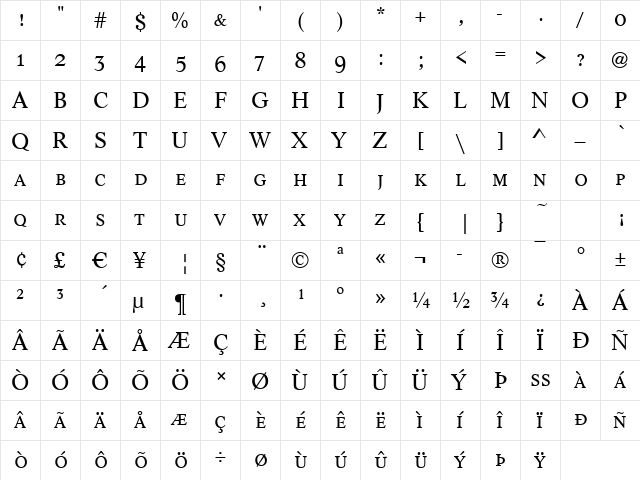
Lyon-Caps Regular
Design Context for Lyon-Caps Typeface
Lyon-Caps takes a measured approach to typography — its balanced proportions and neutral character make it a reliable workhorse for both digital and print work.